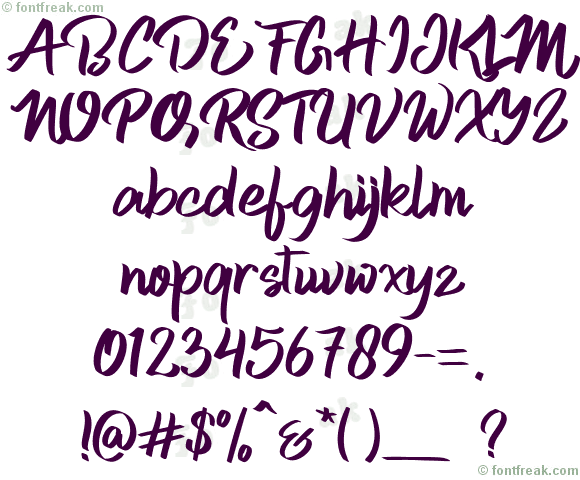
Skid Rock
Skid Rock is a striking display font designed by Burhan Afif, categorized as a decorative typeface. This unique font, released in 2019, features a bold, expressive style that captures attention with its playful yet edgy aesthetic. The stroke weight varies, offering a dynamic contrast that enhances its visual appeal. The characters exhibit a slightly irregular rhythm, adding a sense of movement and energy. The overall spacing is well-balanced, allowing for legibility while maintaining that artistic flair. The design includes decorative elements that evoke a sense of urban creativity, making it a perfect fit for contemporary projects.
This font is ideal for a variety of applications. It shines in creative contexts such as movie posters, where its boldness can convey excitement and drama. Skid Rock is equally effective for branding purposes, particularly for businesses in the arts, music, or streetwear industries, where a modern and edgy look is essential. You might also consider using it for event flyers or promotional materials, as its distinctive style will capture attention and encourage engagement. Additionally, it can enhance restaurant menus that aim for a trendy and casual vibe, appealing to a younger audience.